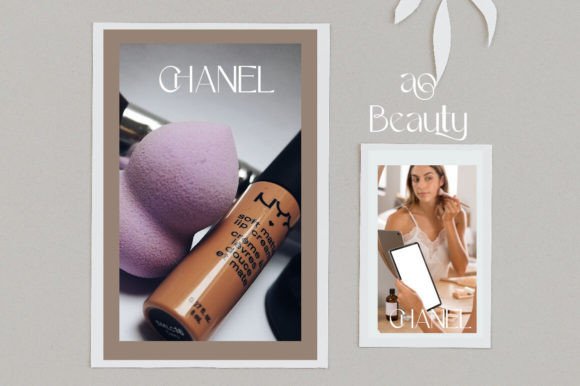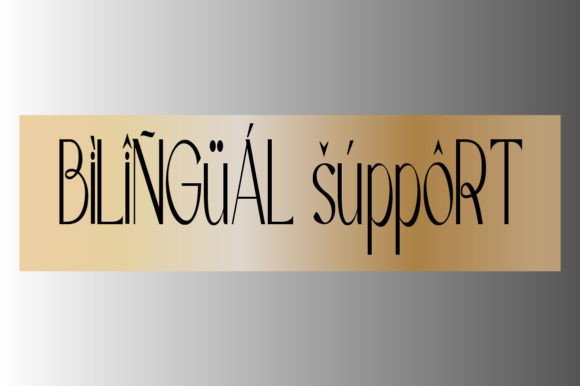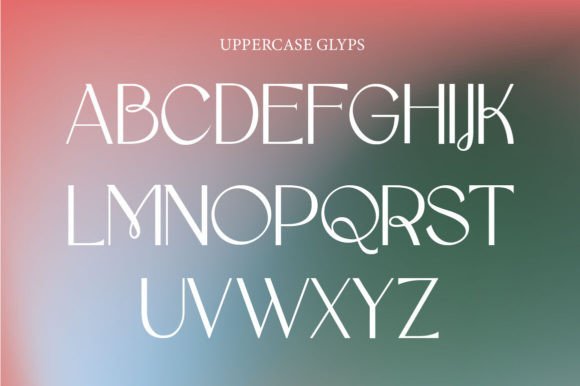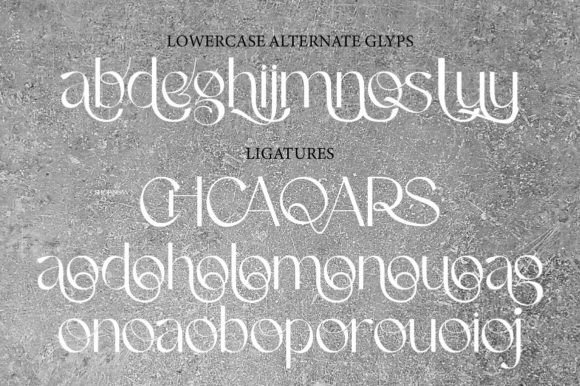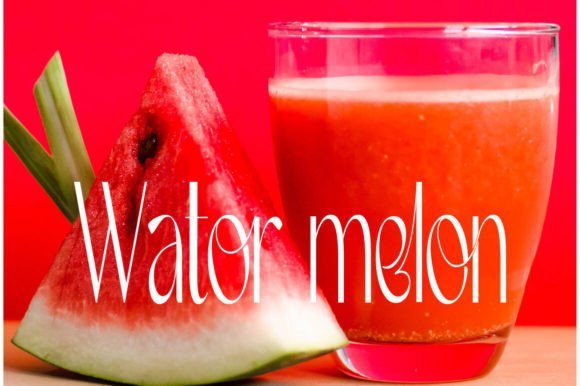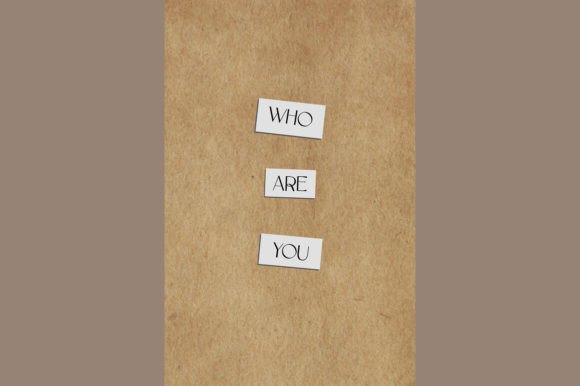
You know that moment when you’re brainstorming ideas for a new design, and suddenly, the entire concept comes together in your mind? The fonts, the colors, the layout – everything just clicks into place. For designers, this moment is priceless, and having the right tools can make all the difference. That’s where the Apelow Font comes in – a sleek and modern sans serif font that’s perfect for bringing your creative vision to life.
This elegant and minimalist font is designed to be versatile and easy to use, making it a valuable addition to any designer’s toolkit. Whether you’re working on a book cover, a magazine spread, or a social media post, the Apelow Font is sure to add a touch of sophistication and style. Its clean and simple design makes it easy to read and understand, even at smaller font sizes.
Apelow Font Key Features
- Font Family: Apelow Font is a sans-serif font family designed for digital use. It is available in several weights, from light to bold.
- Character Set: The font includes a comprehensive character set, covering Latin, Cyrillic, and Greek alphabets, as well as punctuation and symbols.
- Unique Characteristics: The font features a unique, modern design with clean lines and geometric shapes, making it ideal for digital interfaces, user interfaces, and branding materials.
Designer Review: Apelow Font
After diving into the Apelow Font, I have to say it’s a solid addition to any designer’s toolkit. Here are some of the things that really shine: ✨
- Unique aesthetic: Apelow Font has a distinct, hand-drawn feel that sets it apart from more generic sans-serif fonts.
- High legibility: Despite its playful feel, Apelow Font is remarkably easy to read, even at smaller sizes.
- Good for titles and headlines: The font’s bold, eye-catching qualities make it perfect for grabbing attention in titles and headings.
However, as with any font, there are some limitations to be aware of: ⚠️
- Limited character set: Apelow Font is still a relatively new font, and its character set is not as extensive as some more established fonts.
- Might be too playful for some projects: While I love the Apelow Font’s whimsical feel, it may not be the best fit for projects that require a more serious, professional tone.
Overall, I’d give the Apelow Font a solid 4 out of 5 stars. It’s a great choice for designers looking to add some personality to their projects, but it may not be the best fit for every situation. With a bit more development and expansion of its character set, I think Apelow Font has the potential to become a real powerhouse in the world of typography.
Common Use Cases for Apelow Font
Apelow Font is perfect for:
– Creating stylish headings and titles.
– Designing marketing materials, such as brochures and flyers.
– Adding a touch of elegance to presentations and reports.